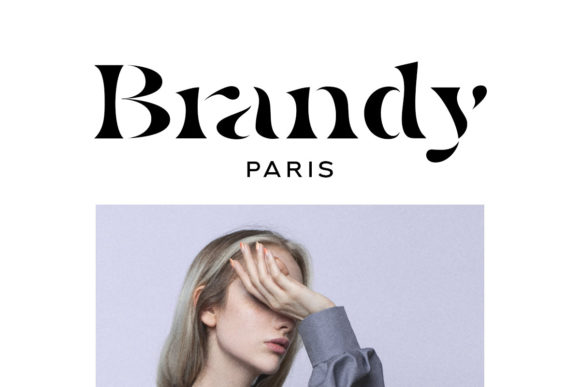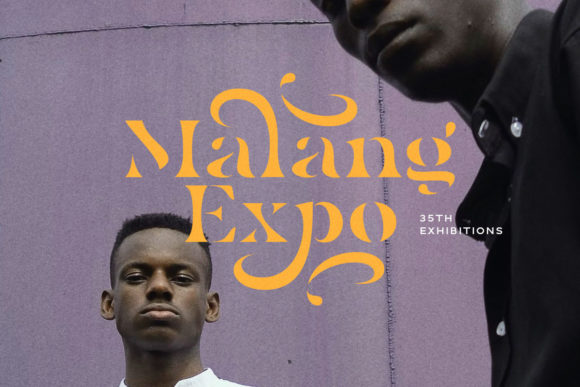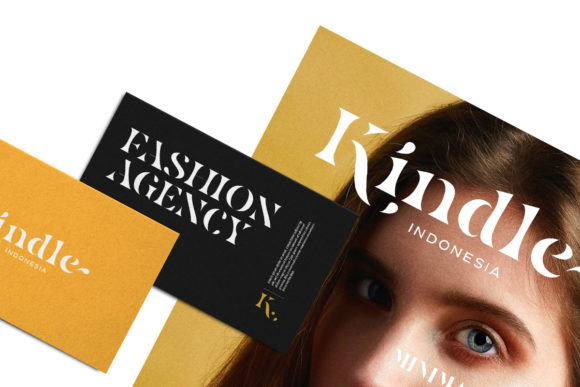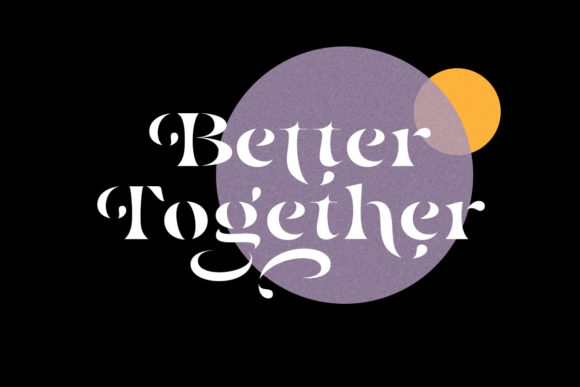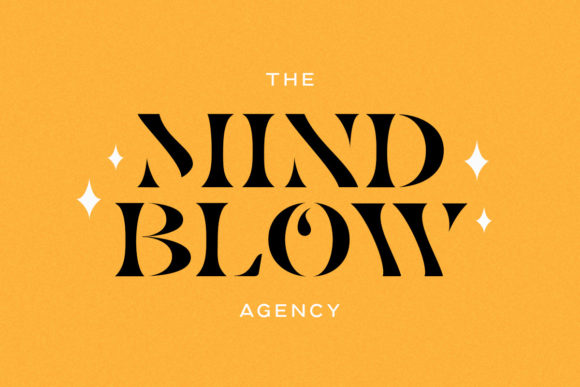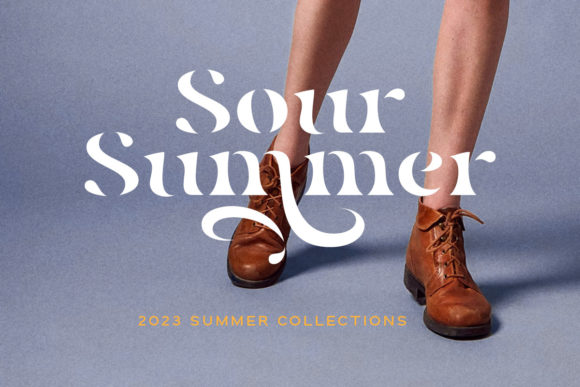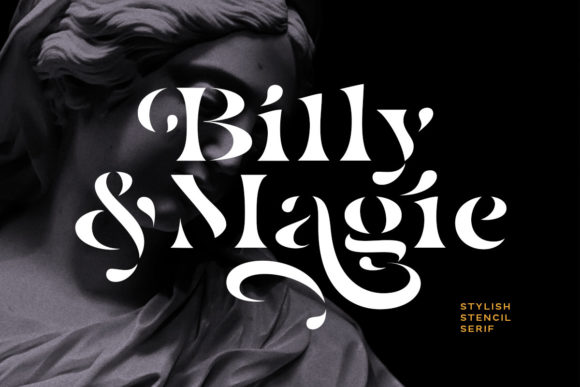
Billy Magie Font: Elevate Your Designs with a Trendy and Chic Serif
In the world of typography, fonts play a crucial role in making or breaking a design. A perfect font can elevate your project from ordinary to extraordinary. If you’re a designer or crafter on the hunt for a trendy and chic serif font, look no further than Billy Magie. This stunning font is not only visually appealing but also packed with features that make it a must-have for any creative project.
What is Billy Magie Font?
Billy Magie is a modern serif font that exudes elegance and sophistication. Its unique design makes it perfect for a wide range of projects, from branding and advertising to packaging and digital media. The font’s classic serif structure is infused with a touch of modernity, giving it a fresh and trendy feel that’s sure to capture attention.
One of the standout features of Billy Magie is its PUA (Private Use Area) encoding. This means that you can access all glyphs and swashes with ease, giving you unparalleled creative control over your designs. With PUA encoding, you can effortlessly navigate through the font’s extensive character set, including alternative letters, ligatures, and decorative swashes. This feature makes it simple to add a personal touch to your projects and make them truly unique.
Key Features of Billy Magie Font
- Trendy and Chic Design: Billy Magie boasts a modern serif design that’s both stylish and sophisticated.
- PUA Encoded: Enjoy easy access to all glyphs and swashes, giving you complete creative control.
- Extensive Character Set: The font includes a wide range of characters, including alternative letters, ligatures, and decorative swashes.
- Multipurpose: Suitable for various projects, including branding, advertising, packaging, digital media, and more.
Why Choose Billy Magie Font?
With so many fonts available, why choose Billy Magie? Here are just a few reasons why this font stands out:
- Unique Design: Billy Magie’s distinctive serif design sets it apart from other fonts, ensuring your projects stand out.
- Ease of Use: PUA encoding makes it simple to access and use the font’s extensive character set.
- Versatility: The font’s multipurpose design makes it suitable for a wide range of projects and applications.
- High-Quality: Billy Magie is crafted with attention to detail, ensuring a high-quality finish that will elevate your designs.
Tips and Tricks for Working with Billy Magie
To get the most out of Billy Magie, here are some tips and tricks to keep in mind:
- Experiment with Swashes: The font’s decorative swashes can add a touch of elegance to your designs. Experiment with different swash combinations to find the perfect look.
- Mix and Match: Don’t be afraid to combine Billy Magie with other fonts to create a unique visual identity.
- Pay Attention to Kerning: Take the time to adjust the kerning to ensure a smooth, professional finish.